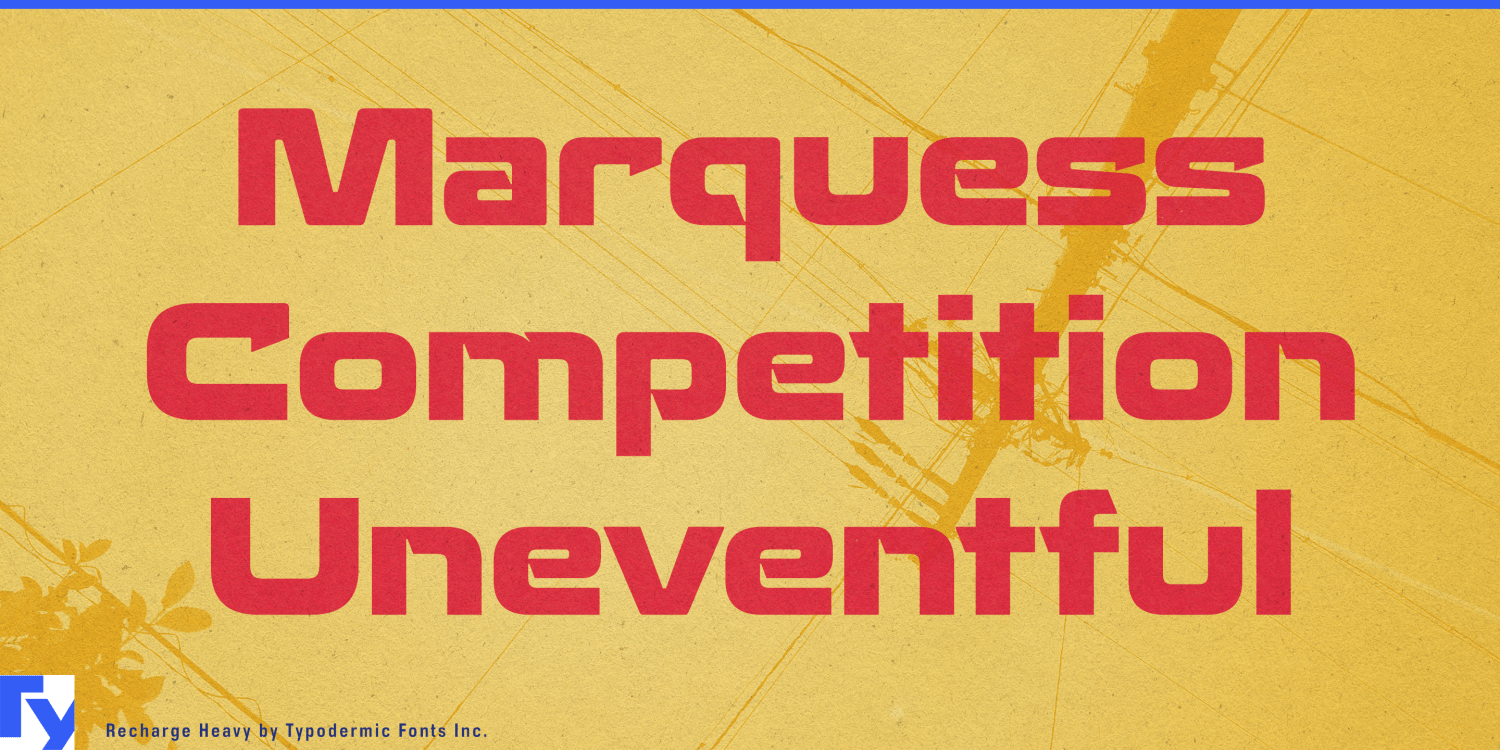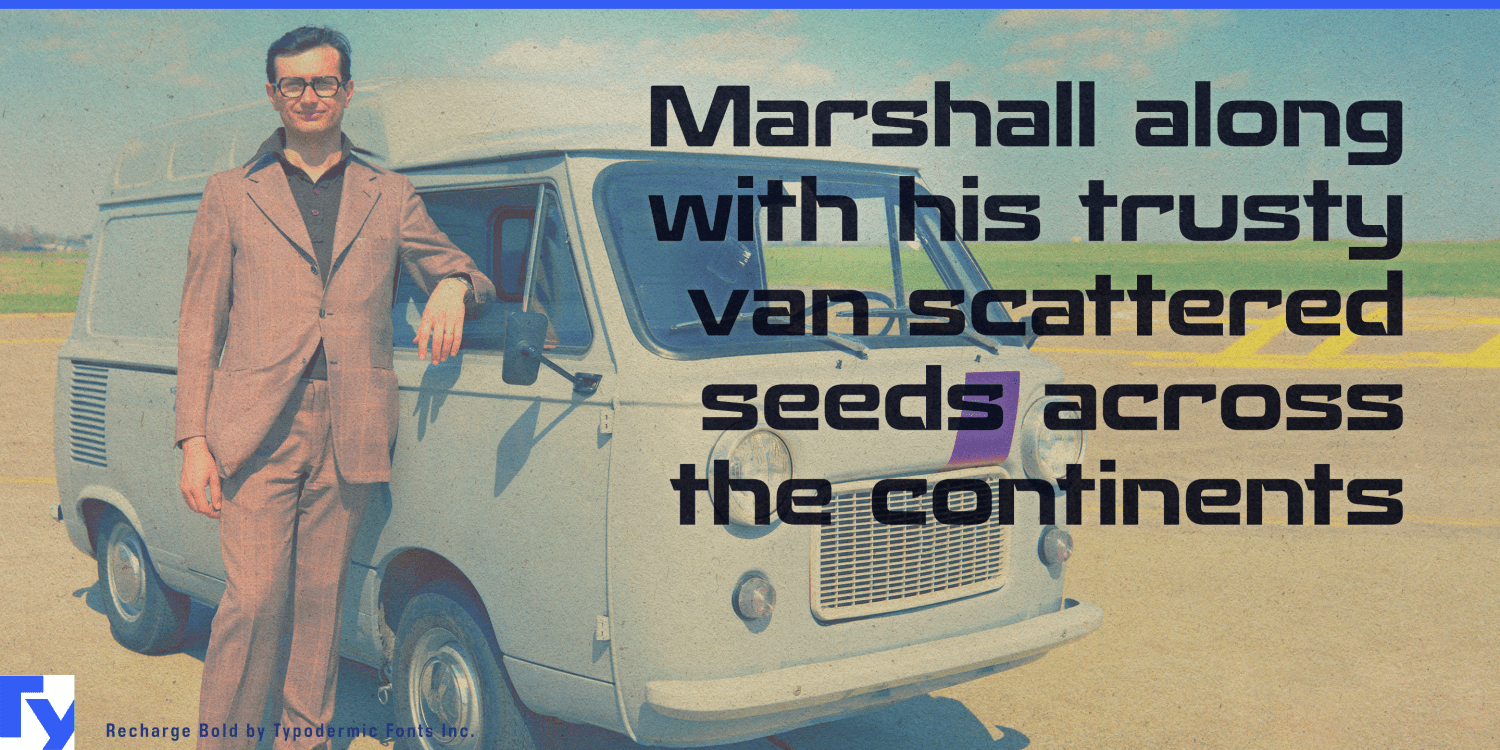
About Recharge
Brace yourself for a jolt of typographic energy with Recharge, the industrial powerhouse that’ll send your designs surging into overdrive! This is a high-voltage conduit for your creative current, ready to illuminate your message with megawatt brilliance.…